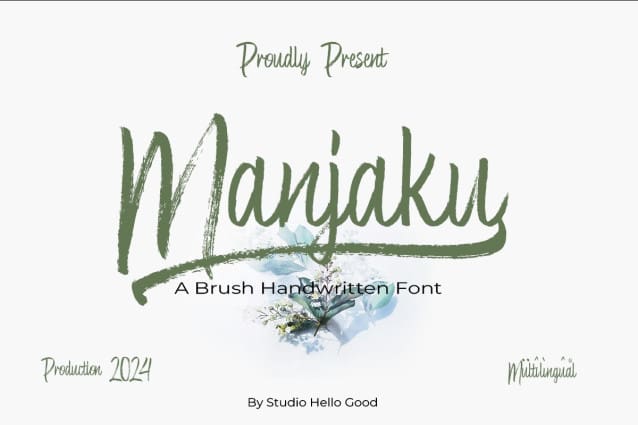
Manjaku Brush Font
Manjaku Brush Font, is a modern brush handwritten font, defined by a flowing and contemporary design. Fall in love with its incredibly versatile style and use it to create spectacular designs!